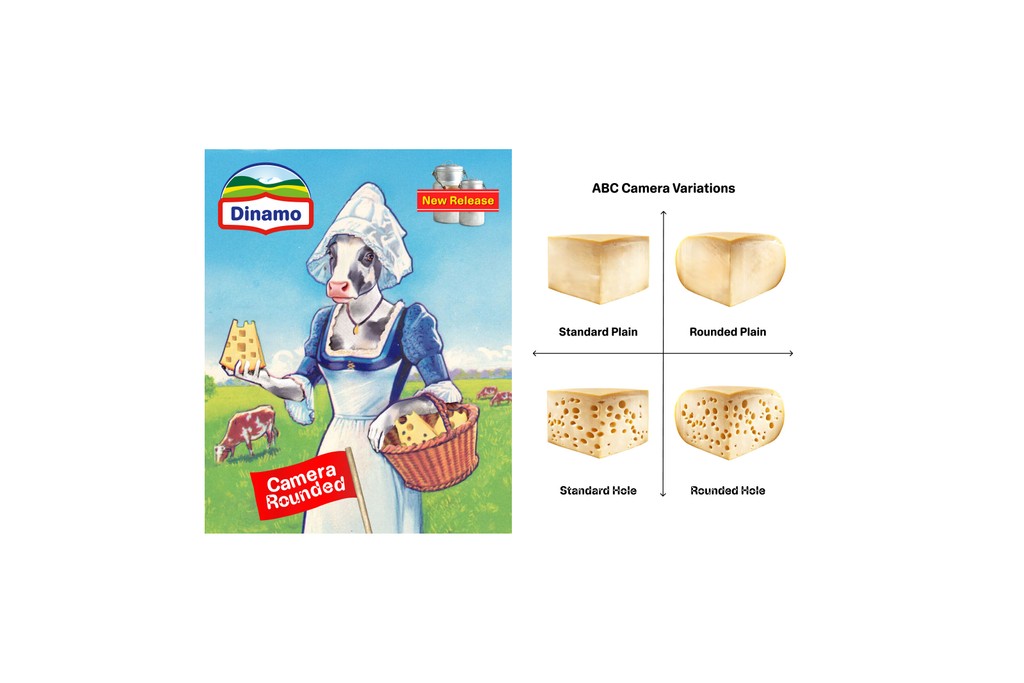
Camera Rounded
Features
Alternate a, g, R & G
Alternate a
Alternate g
Alternate t
Alternate G
Alternate R
Rounded Punctuation
About Camera Rounded
ABC Camera is a reinterpretation of light traps, which were originally used in the 60s and 70s to make text more readable on TV screens. Similar in logic to ink traps, light traps compensated for low resolution: When the font appeared, the screen’s blur filled in its holes so that each letter looked complete. The design has been orbiting around our cosmos for a long time, and it might be one of the most requested typefaces in our inbox to date. Like many of our fonts, it can be considered an “early work” of our co-founder Fabian Harb, conceptualized around Dinamo’s inception days.
In terms of shape, ABC Camera sits somewhere near a classic grotesque, but with a narrower body, freer proportions, and a slightly looser attitude. ABC Camera Rounded takes this further by softening the outlines, taking the family toward a warmer, more playful place. We’ve also added monospace styles, opening up the possibility of sprinkling in a bit of technical flavor. Plus, all versions are available without the holes, for those who prefer things a little more waterproof.
All of Camera’s subfamilies share the same underlying structure and DNA, which means they can be combined and thrown together beautifully. And there’s a couple of alternate glyphs baked into the fonts (a t G R) that you use to customize your own version using our free Font Customizer tool.
Design: Dinamo (Johannes Breyer, Fabian Harb, Fabiola Mejía, Sascha Bente)
Spacing and Kerning: Igino Marini
Production: Dinamo
Biennale Carbon. Design by Service Local
DimDJ Acid Tracks. Artwork by Callin Mackintosh
Closer. By Alyar Anetchi
Reimagining Space New Utopias. Design by Albrecht Gäbel
Another 01. Design by local.remote
Zurich Design Weeks. Design by ALP Atelier Landolt Pfister